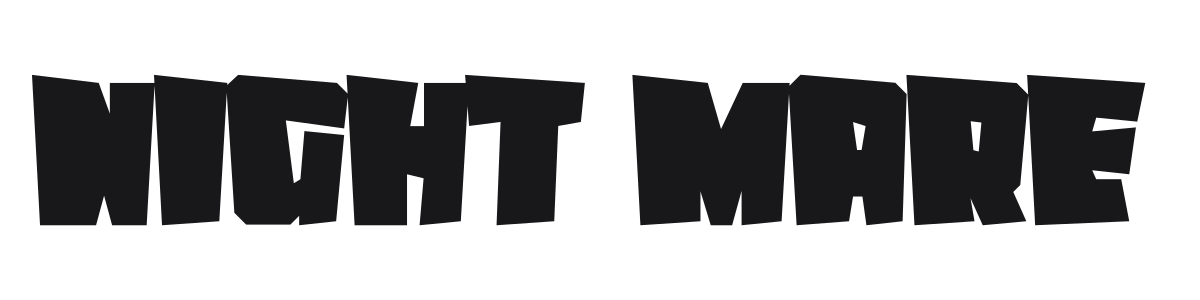
Night Mare
Night Mare is a chunky bold display font built from jagged, angled cuts that give every character a fractured, unsettled look. Letters lean and tilt with irregular geometry, landing somewhere between a horror-movie title card and a hand-carved sign. It works best large, where the rough edges and thick strokes can do their thing.